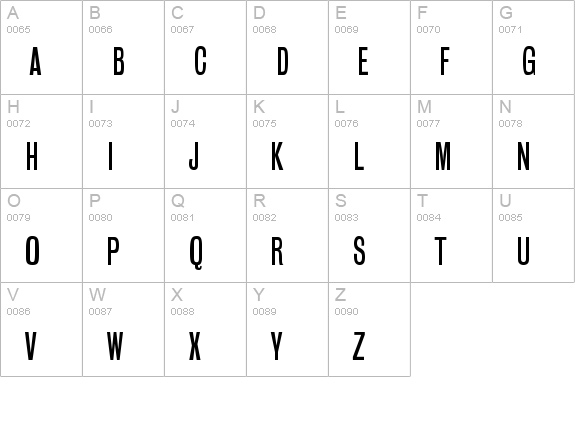
Grotesque No. 7 Condensed is a distinctive, condensed-width variant in the Grotesque typeface family \xE2\x80\x94 well suited to design and typography projects.
Grotesque No. 7 Condensed font is a bold and distinctive typeface that commands attention with its unique and modern design. Its strong, condensed letterforms exude a sense of power and sophistication, making it ideal for headlines, branding, and editorial design projects. The font's edgy and unconventional style adds a touch of avant-garde flair to any creative endeavor. What's even better is that Grotesque No. 7 Condensed font is available for free download at FontsMarket.com, allowing designers and typographers to access this striking typeface with ease. Whether you're looking to make a bold statement or add a touch of contemporary flair to your projects, this font is sure to make a lasting impression. Download Grotesque No. 7 Condensed today and elevate your designs with its unique charm and versatility.